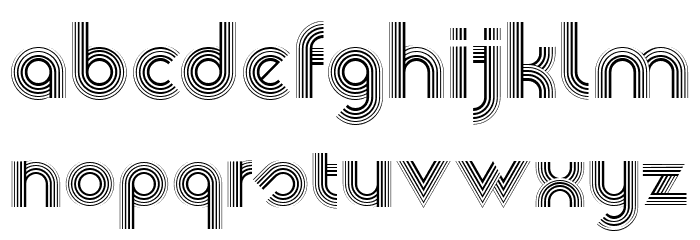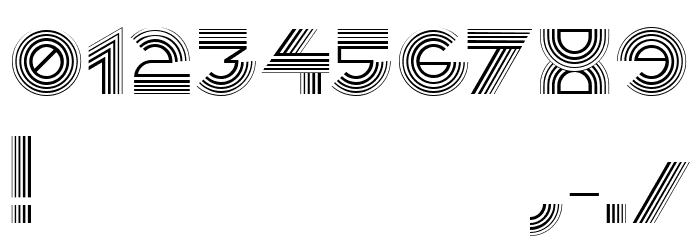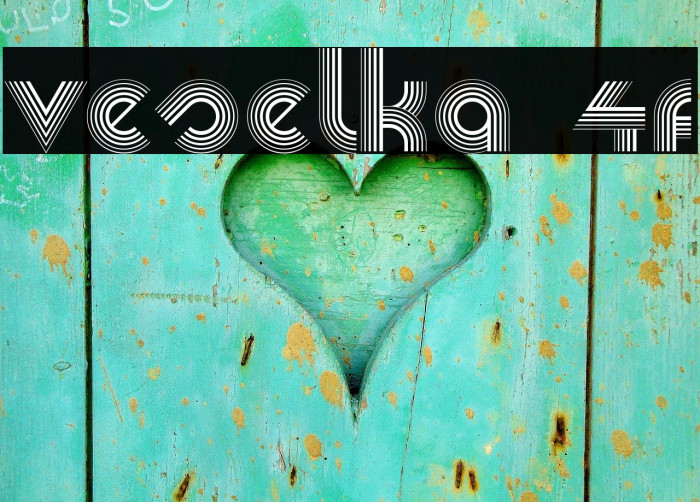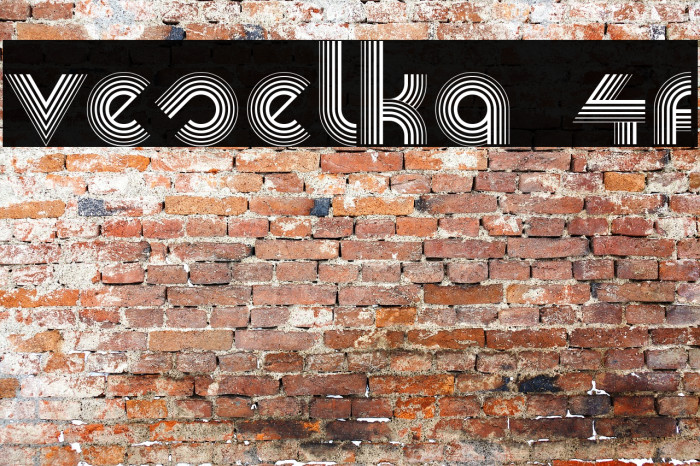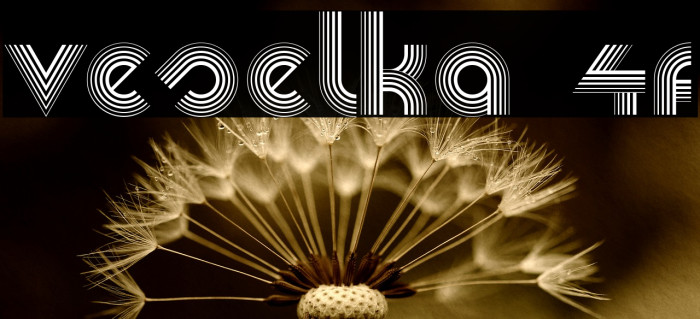
Veselka 4F Font
This font features a unique and modern design characterized by multiple parallel lines forming each character. The geometric structure gives it a futuristic and dynamic appearance, making it stand out with its intricate detailing. The letters are constructed with a series of horizontal and vertical lines that create a sense of movement and rhythm. This design is consistent across uppercase, lowercase, numbers, and special characters, providing a cohesive and visually striking typeface. The font's style is both decorative and functional, suitable for projects that require a bold and eye-catching aesthetic.
A modern, geometric font with parallel line detailing for a dynamic look.
- Proposed Projects: Ideal for branding, posters, album covers, and any project needing a futuristic or artistic touch.